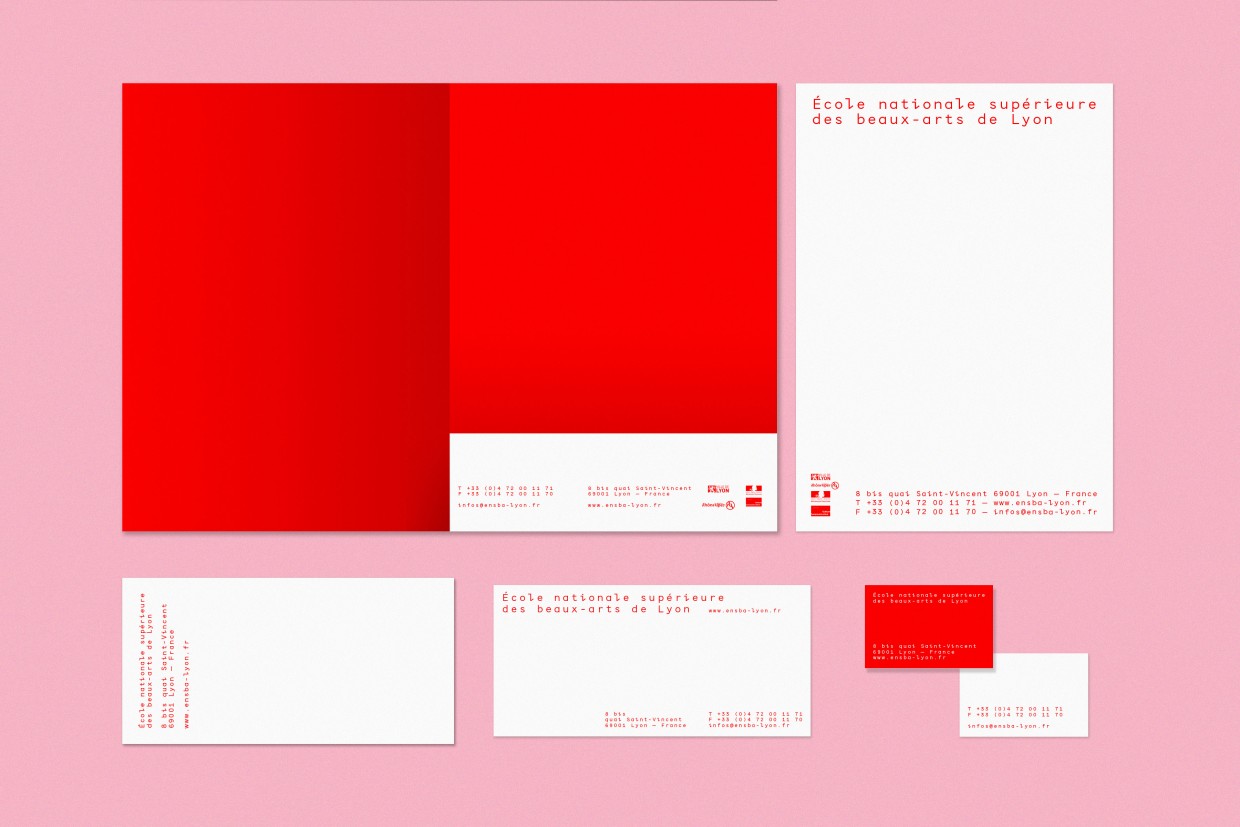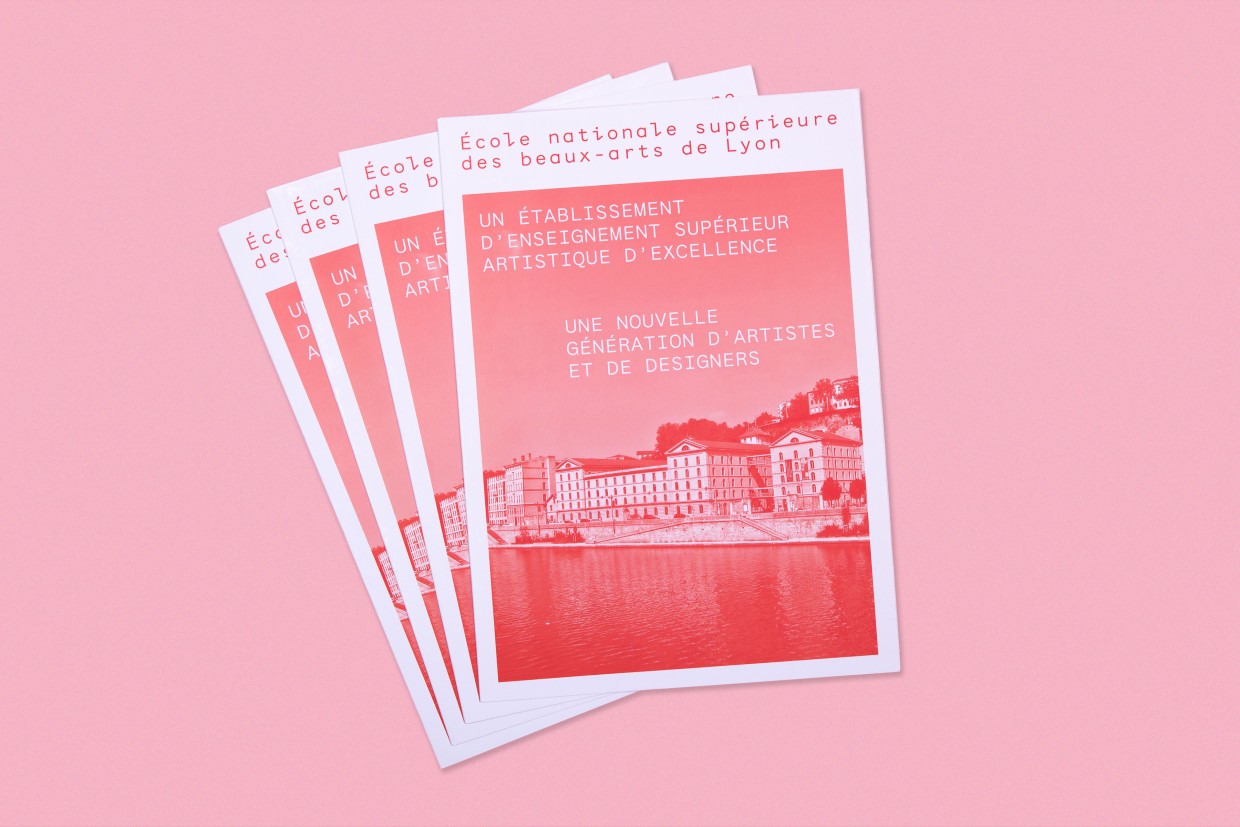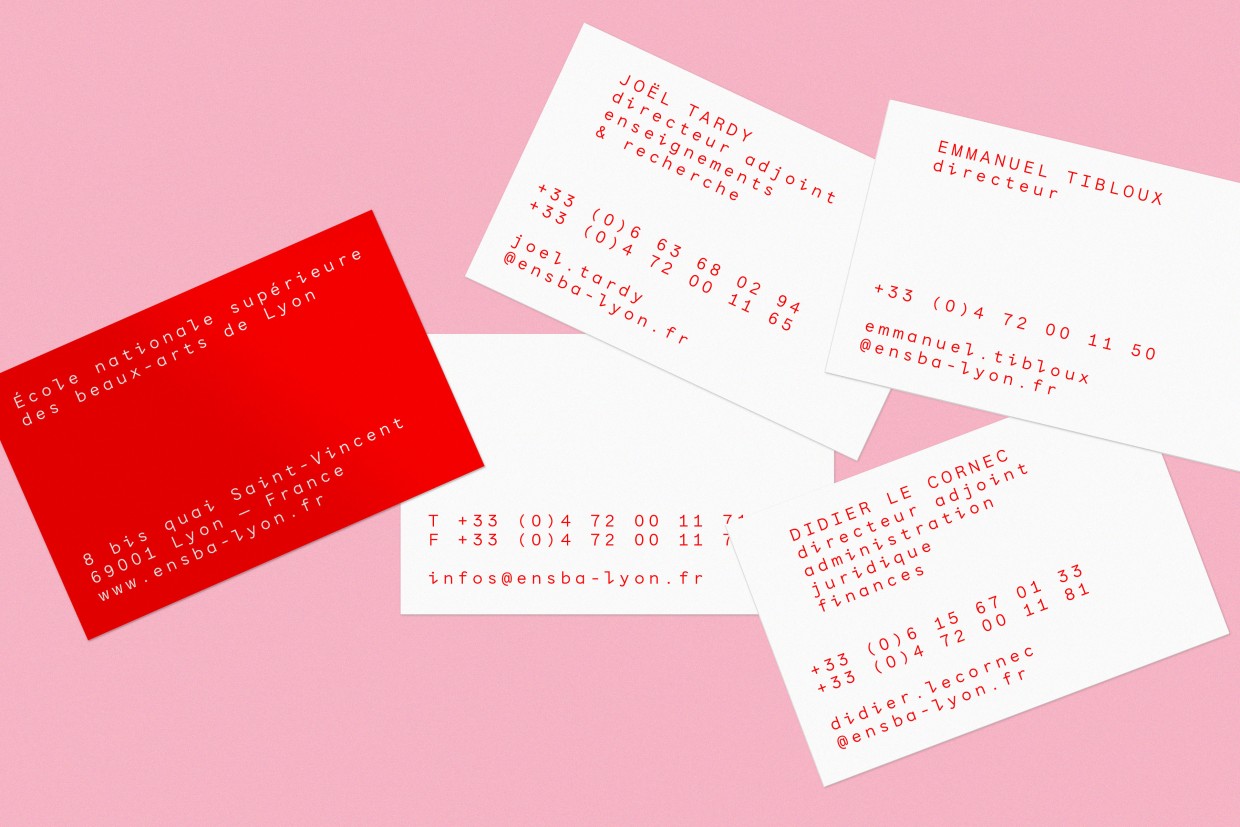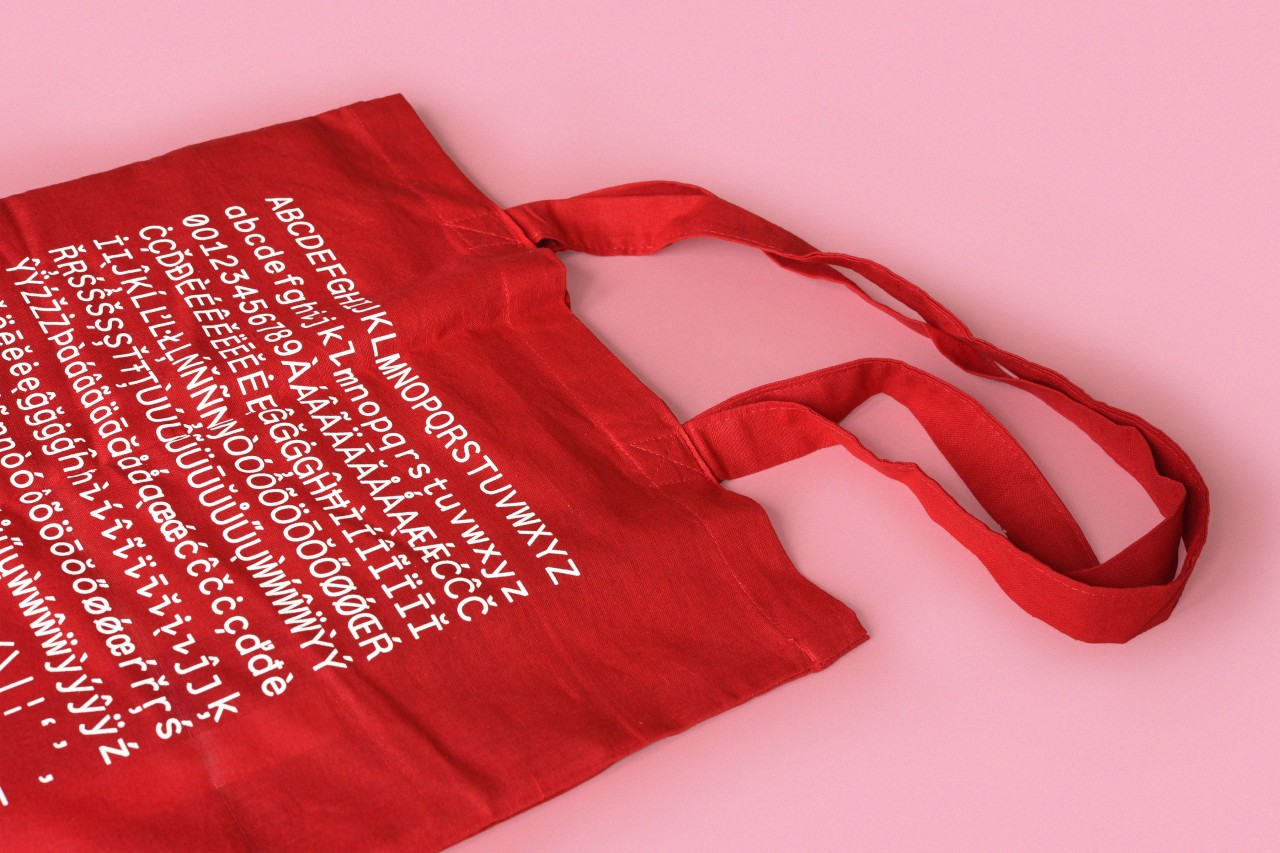
Ensba is a bespoke typeface developed for the new visual identity of the École nationale supérieure des beaux-arts de Lyon, in collaboration with Radim Peško and Fabrice Grelat Mabime. Conceived as a structural element rather than a mere typographic tool, it plays a central role in articulating the school’s voice across media.
At the core of the project lies a monospaced system. The fixed width establishes a distinctive rhythm, introducing a subtle sense of temporality—as if each character occupied an equal unit of time. This regular pacing creates both tension and coherence, lending the layouts an immediate graphic presence. The monospace structure also carries an architectural dimension: it organizes the page with clarity and intention, shaping space as much as it shapes text.
While the overall letterforms draw from the legacy of historical humanist sans serifs, Ensba deliberately departs from orthodoxy in selected glyphs. Certain characters become expressive markers of identity—most notably the “i” and the “l.” The “i” unfolds as a tripartite sign: “I” as Identity, “I” as self, “I” as Eye. Its three-part construction symbolizes the three voices within the school—the administration, the teachers, and the students—coexisting within a shared framework.
Alongside the monospaced styles, a proportional companion was designed for running text, expanding the system’s versatility and addressing the institution’s diverse editorial and communication needs. Ensba thus balances rigor and play, system and expression—reflecting the pedagogical and experimental spirit of the school itself.